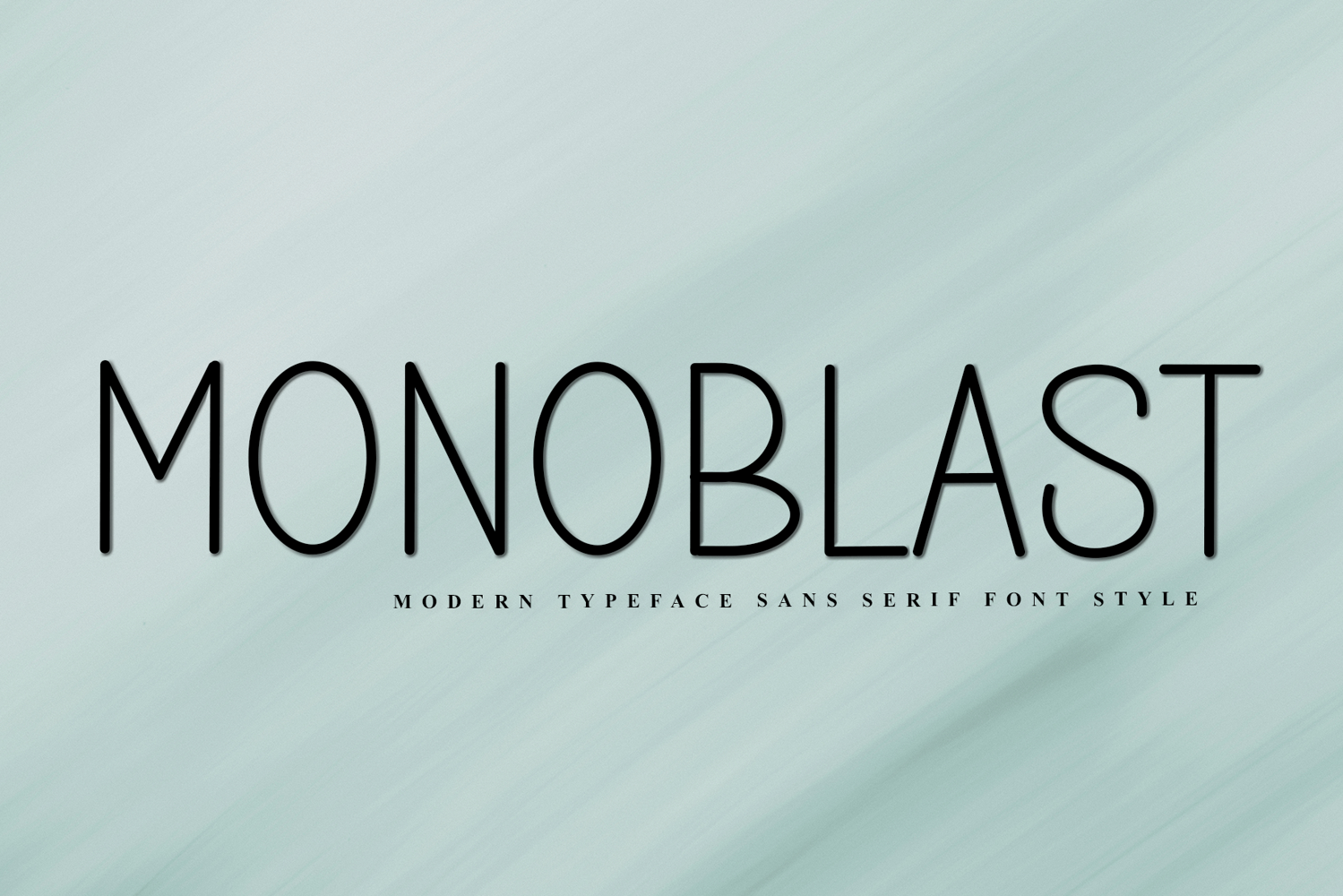
Monoblast
Monoblast is a beautiful and eye-catching font designed with a soft, unique touch. Its distinctive strokes give it a special character, making it meaningful and versatile for future use. With various characters, it’s perfect for design projects, crafts, and other creative works.